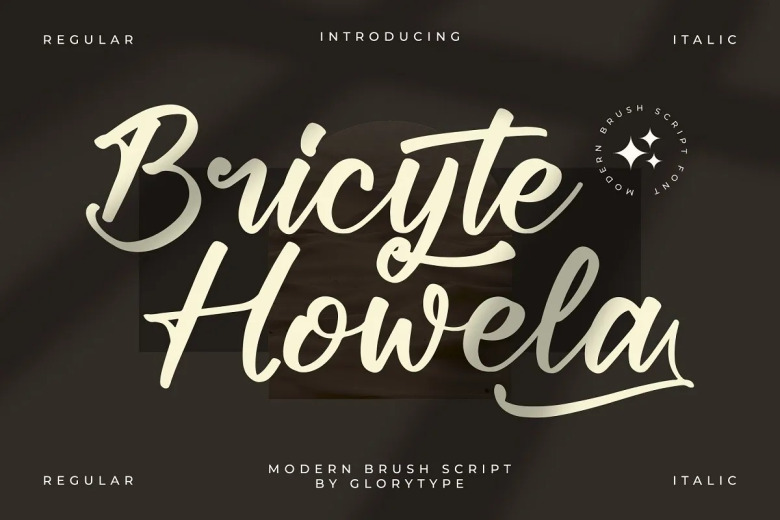
Bricyte Howela Font
Bricyte Howela is a stunning brush script font. It is a very nice and tight font with some awesome detail No matter what it is, this font will be a great addition to your library of fonts, since it can add that extra bit of pizzazz to anything you create.
Bricyte Howela Brush Script Font